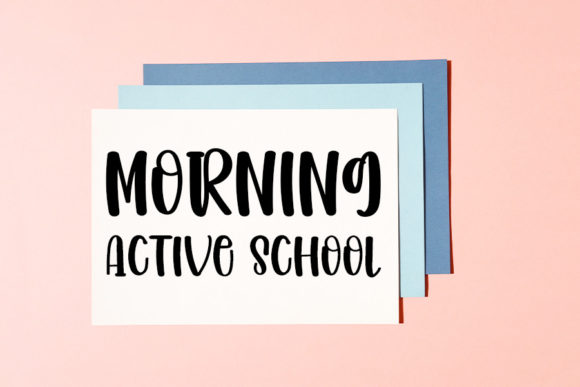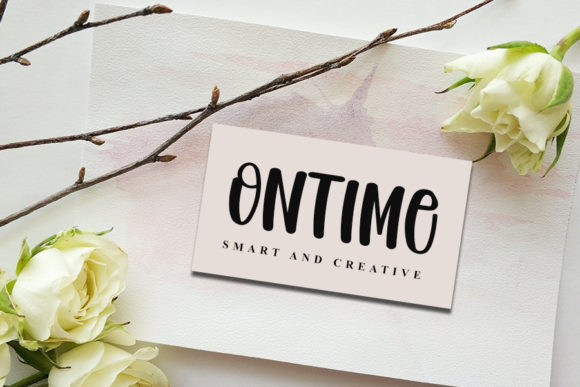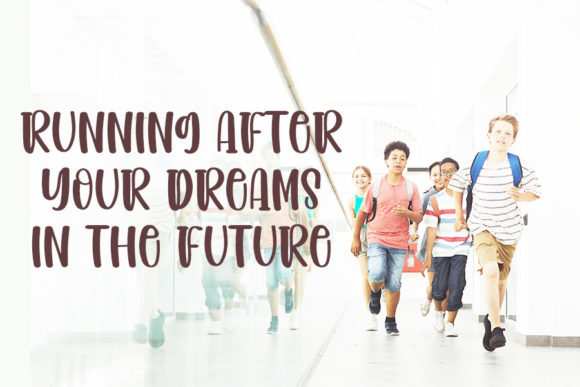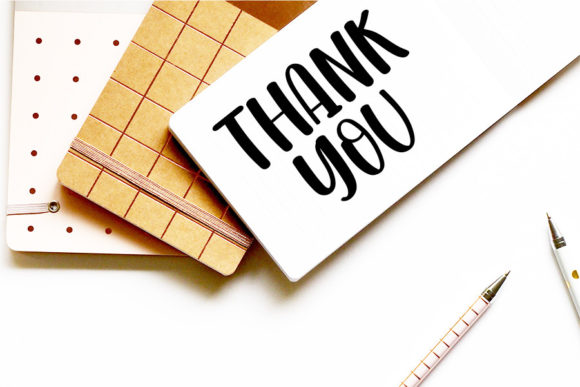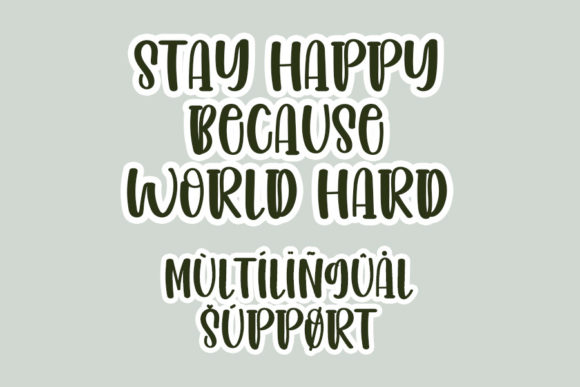
When a Font Speaks to You
Have you ever stumbled upon a font that makes you feel like you’ve found a long-lost friend? A font that speaks to you, and you can’t help but imagine all the amazing designs you can create with it? That’s exactly what happened when I discovered the Best Friends Font. Its unique and beautiful handwritten style has a way of making your design come alive!
As a designer, you’re always on the lookout for that special something that sets your work apart. That’s where Best Friends Font comes in – a stylish and smart-looking handwritten font that’s perfect for adding a personal touch to your designs. Whether you’re working on a branding project, a wedding invitation, or a social media campaign, this font is sure to make your designs stand out from the crowd.
Best Friends Font Key Features
- Font Family: Best Friends Font is a custom-designed font family with a playful and friendly tone.
- Unique Characteristics: Features a unique blend of rounded and geometric shapes, creating a friendly and approachable feel. The font also includes a range of ligatures and swashes for added flair.
Best Friends Font Review
As a designer, I’ve had the chance to work with many fonts, and I must say that the “Best Friends Font” has its good and bad sides. Let’s dive in and see what it’s all about!
- The font is super cute and playful, perfect for kids’ books, greeting cards, or any project that needs a friendly vibe.
- The font is highly customizable, allowing you to adjust the size, color, and even add some fun effects like shadows or outlines.
- The font is available in a variety of languages, making it a great choice for multilingual projects.
- The font may not be the best choice for formal or professional projects, as it’s a bit too playful and casual.
- The font can be a bit difficult to read at smaller sizes, so it’s best to use it at larger sizes or with a clear background.
- The font may not be as widely supported as some other fonts, so you may encounter some compatibility issues.
The “Best Friends Font” is a fun and playful font that’s perfect for casual projects. While it has some limitations, it’s a great choice for projects that need a friendly and approachable vibe. With some careful planning and customization, you can create some amazing designs with this font.
Tips for Getting the Most Out of the Best Friends Font
Use the Best Friends font for creating playful and casual designs, such as social media graphics, invitations, and posters.
Pair the Best Friends font with bold, bright colors to create a fun and energetic look.
Experiment with different font sizes and styles to add visual interest to your designs.
The Best Friends font is ideal for:
- Social media graphics and posts
- Invitations and party decorations
- Posters and flyers
- Blog titles and headings